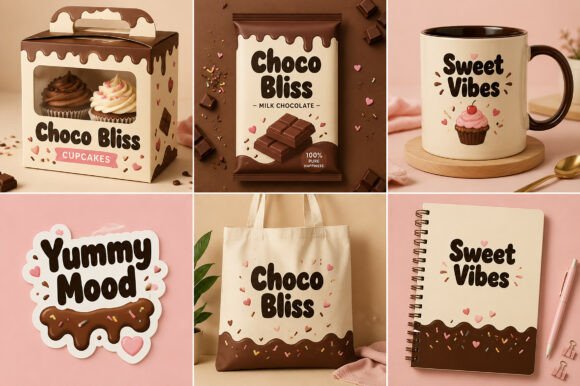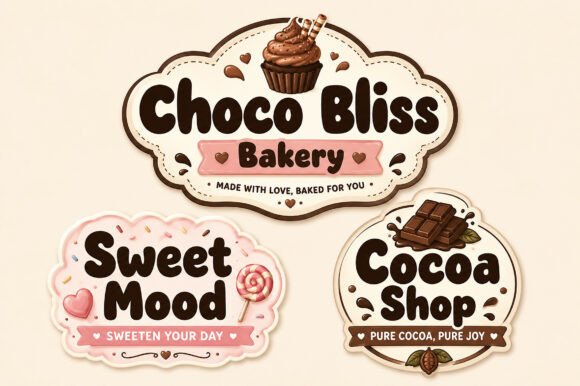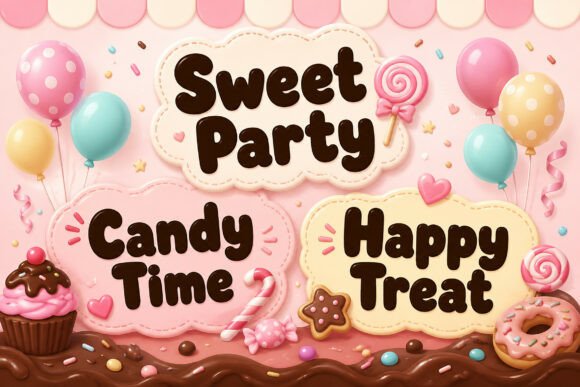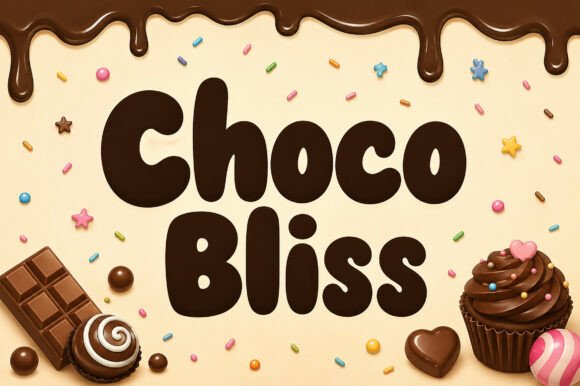
Introducing Choco Bliss Font: The Sweetest Addition to Your Design Collection
Are you looking for a font that can add a touch of sweetness and playfulness to your designs? Look no further than Choco Bliss, a fun and adorable bubble display font that’s perfect for a variety of creative projects. Inspired by sweet treats, chocolate candies, playful packaging, and cheerful kids’ designs, Choco Bliss is sure to bring a joyful and friendly feel to any design.
The Inspiration Behind Choco Bliss
Choco Bliss is a font that’s all about embracing the fun and playful side of design. Its chunky rounded shapes, soft curves, and bold personality make it the perfect choice for designers who want to create eye-catching and engaging designs. The font’s inspiration comes from the world of sweet treats, including chocolate candies, cupcakes, and other desserts that bring a smile to our faces.
What Makes Choco Bliss So Special?
So, what sets Choco Bliss apart from other fonts? Here are just a few of its key features:
- Chunky rounded shapes: Choco Bliss features chunky rounded shapes that give it a playful and fun feel.
- Soft curves: The font’s soft curves add a touch of elegance and sophistication to its overall design.
- Bold personality: Choco Bliss has a bold and confident personality that’s perfect for designers who want to make a statement.
- Easy-to-read letterforms: The font’s letterforms are bold and easy to read, making it perfect for headlines, logos, and other typography projects.
Choco Bliss is a versatile font that can be used for a wide range of design projects, including:
- Branding: Use Choco Bliss to create a fun and playful brand identity that’s sure to stand out.
- Product packaging: Add a touch of sweetness to your product packaging with Choco Bliss.
- Party invitations: Create fun and playful party invitations with Choco Bliss.
- Children’s books: Use Choco Bliss to create engaging and interactive children’s books.
- Stickers and Cricut crafts: Choco Bliss is perfect for creating fun and playful stickers and Cricut crafts.
- Social media graphics: Use Choco Bliss to create eye-catching social media graphics that are sure to grab attention.
- Posters and merchandise: Create bold and eye-catching posters and merchandise with Choco Bliss.
Who Can Benefit from Choco Bliss?
Choco Bliss is perfect for designers and crafters who work with:
- Candy shops: Use Choco Bliss to create fun and playful branding and packaging for candy shops.
- Bakeries: Add a touch of sweetness to your bakery’s branding and packaging with Choco Bliss.
- Dessert brands: Use Choco Bliss to create eye-catching branding and packaging for dessert brands.
- Digital product creators: Choco Bliss is perfect for creating fun and playful digital products, such as printable art and planners.
Get Ready to Add Some Sweetness to Your Designs
In conclusion, Choco Bliss is a fun and adorable bubble display font that’s perfect for designers and crafters who want to add a touch of sweetness and playfulness to their designs. With its versatility and ease of use, Choco Bliss is sure to become a favorite in any design collection. So why wait? Download Choco Bliss today and start creating your own sweet designs!